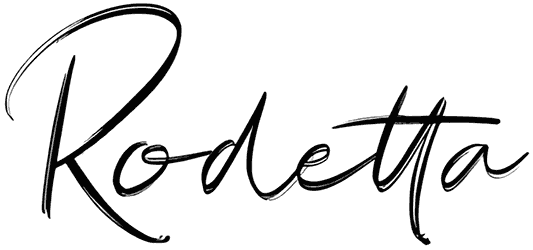
Rodetta Font
Rodetta is a lovely script font that comes with a cursive style that dances along the baseline; thus, it has a very captivating look. This brush font can be utilized in creative ideas such as branding projects, logos, business cards, product packaging, and movie posters. The shape of its characters looks soft and flowing, so it carries a sense of softness, delicacy, precision, and personalization.